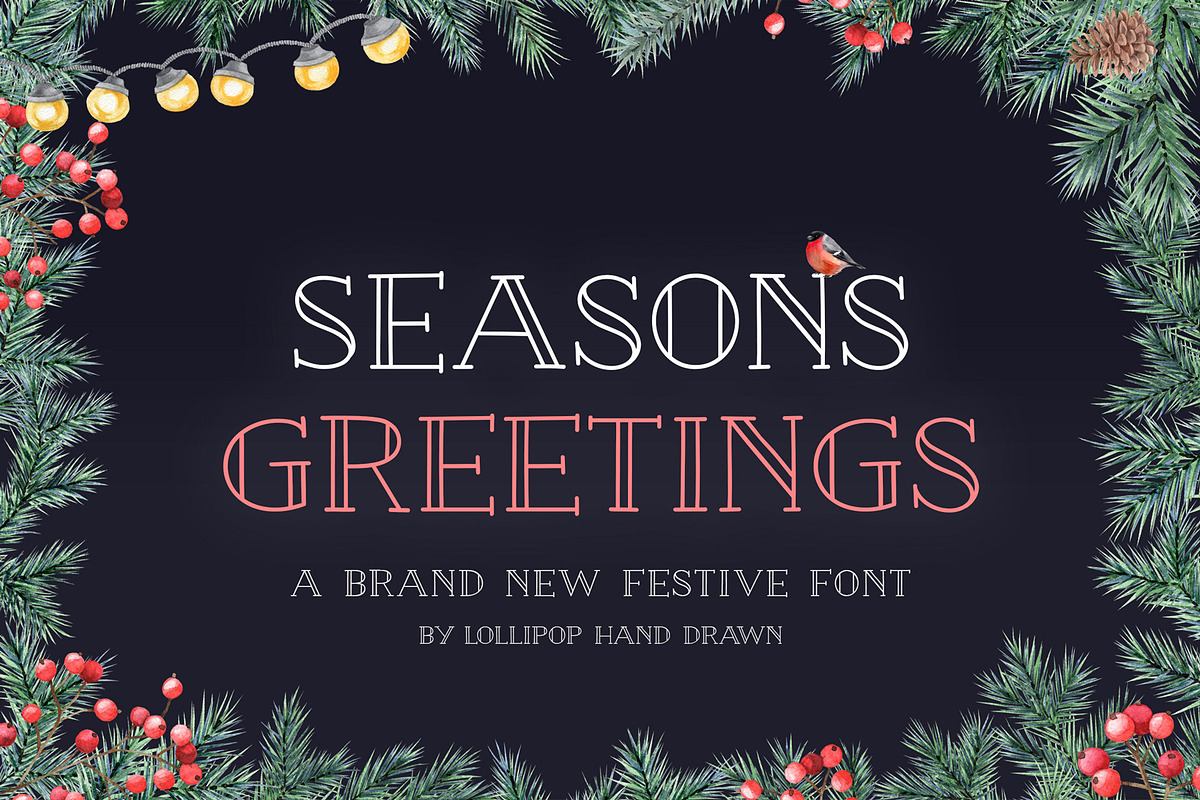
Seasons Greetings Font Free Download is a festive and heartwarming typeface designed to capture the magic of the holidays. With elegant curves, handwritten charm, and a joyful spirit, this font is perfect for Christmas cards, holiday invitations, seasonal packaging, winter event posters, and cozy home decor. It brings a warm, welcoming touch to any design celebrating the most wonderful time of the year.
Using the Seasons Greetings Font Free Download allows you to add classic holiday flair to your creative projects. Whether you're crafting cheerful social media graphics or heartfelt printed messages, this font delivers the perfect mix of elegance and seasonal charm.